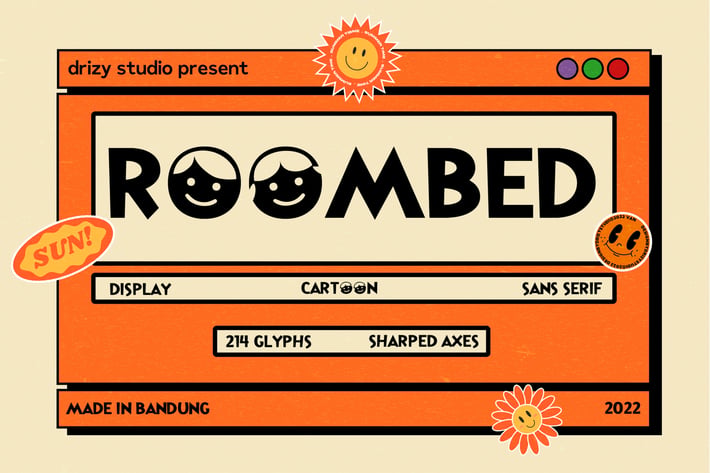
Roombed - Fun Font
Introducing Roombed! a sans serif cartoon font from Drizy! It's suitable for fun cartoon theme of your project.
Roombed Features:
Multilinguals & Ligatures